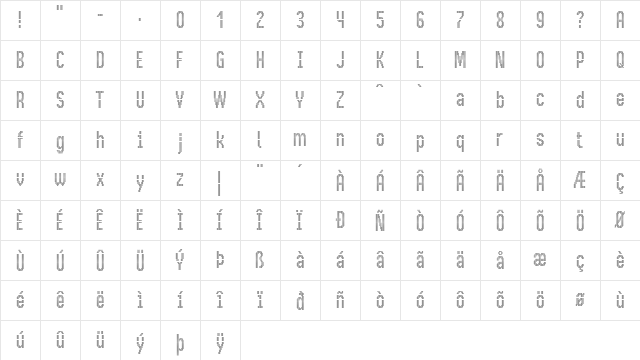
BusMatrix Condensed Condensed
| Foundry | Studio Dot by dot |
| Designer | Sjoerd Kulsdom, Studio Dot by dot |
Design Context for BusMatrix Condensed Typeface
BusMatrix Condensed takes a measured approach to typography — its balanced proportions and neutral character make it a reliable workhorse for both digital and print work. The condensed width makes it efficient for tight spaces without sacrificing legibility.